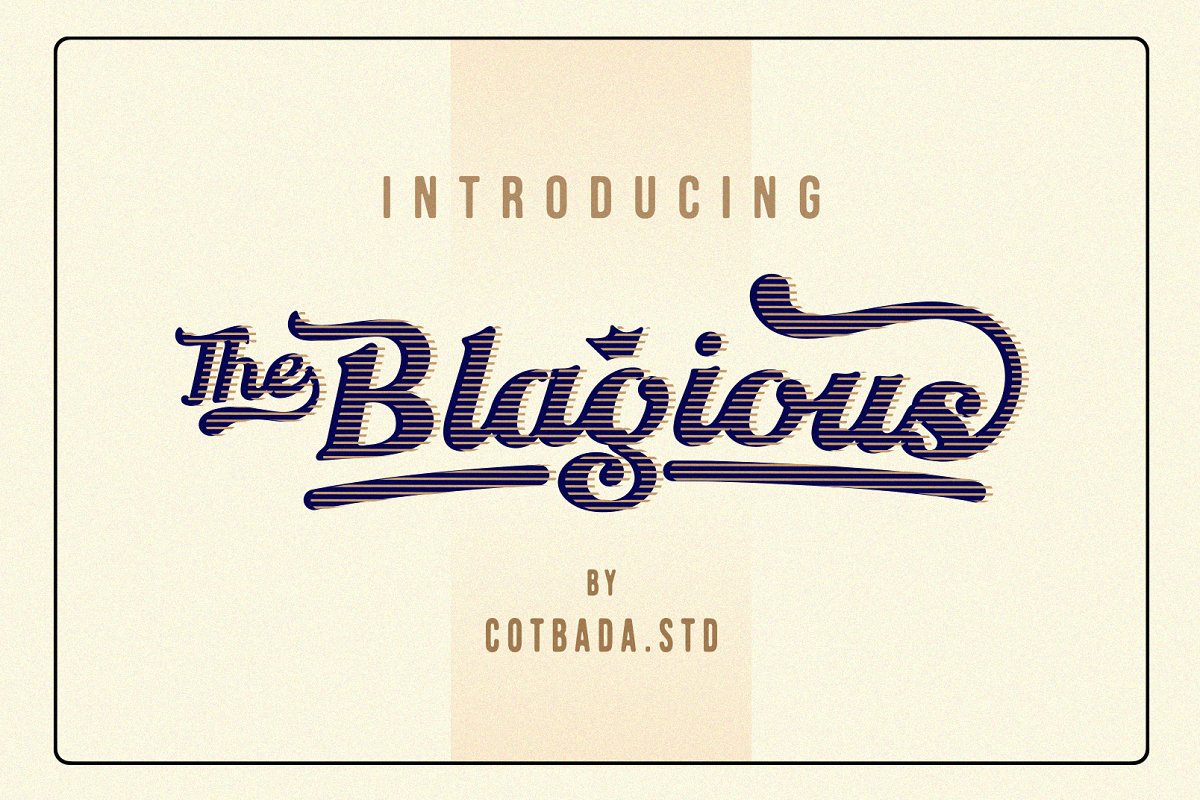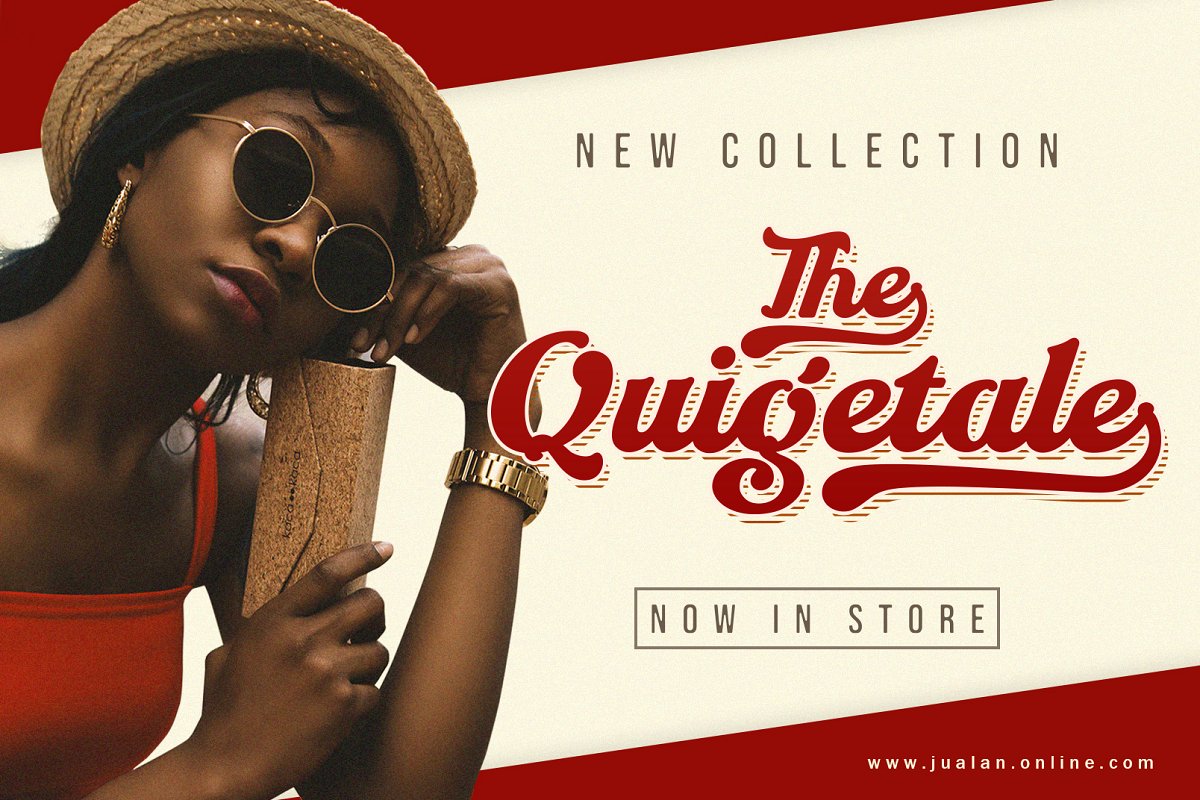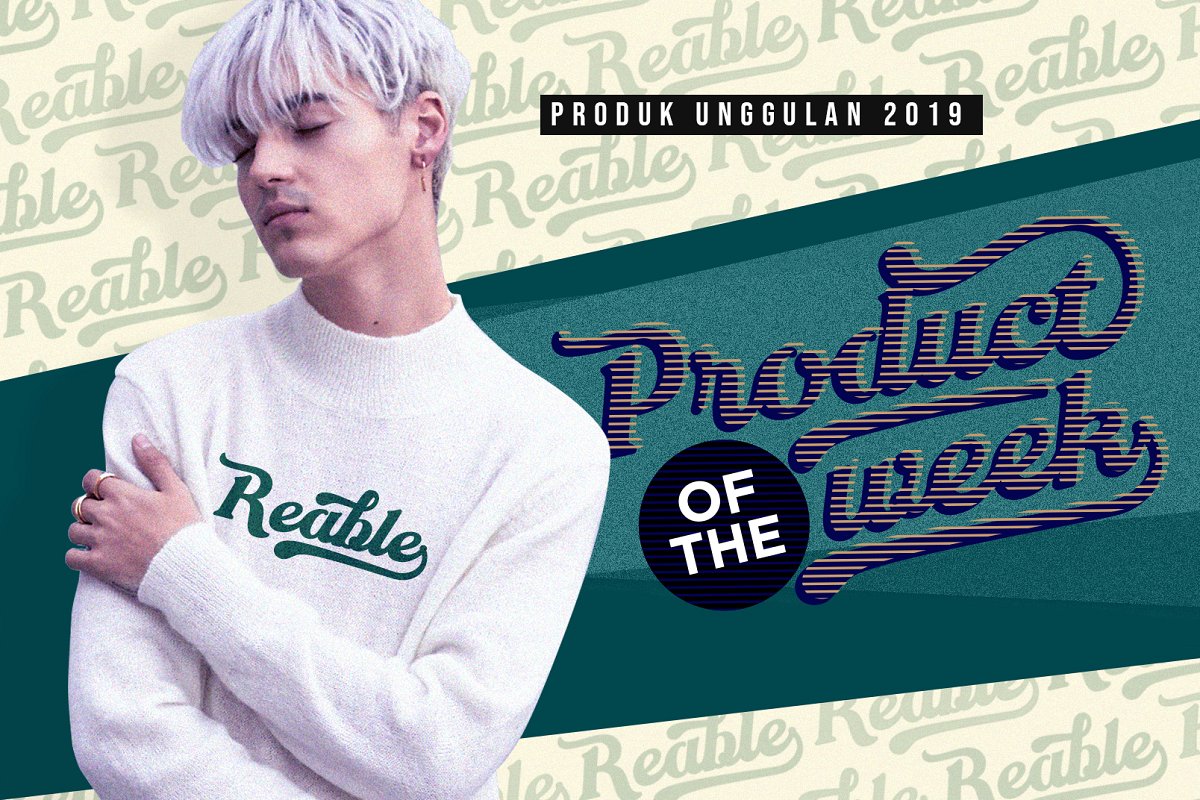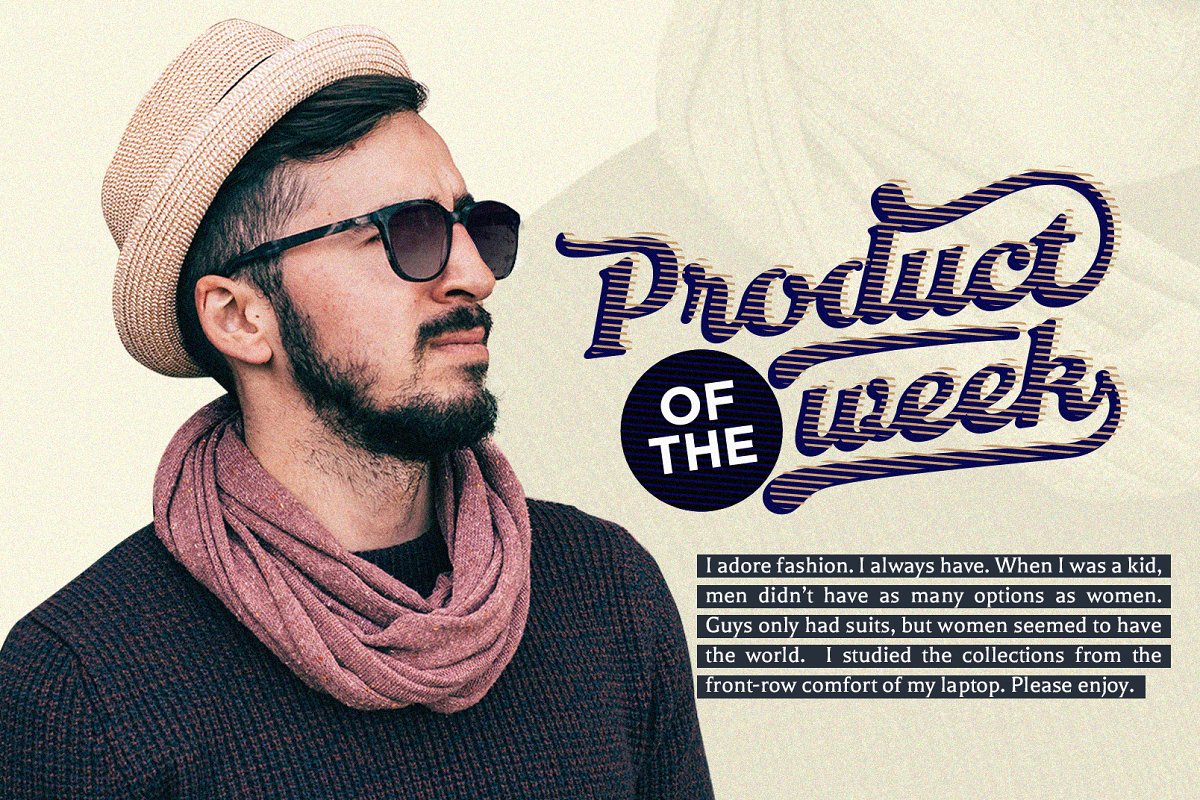
The Blagious Script Font
Blagious Bold Script is one of my fonts based on a hand lettering project in 2017. It was very inspired from the famous retro typography designs in late 60’s untill 80’s.
Blagious Bold Script is a unique, cool and modern handwritten font. It’s hand look style makes it perfect for use in all your design projects be it logos, Labels, Packaging design, Blog headlines, Poster, Instagram Design, etc